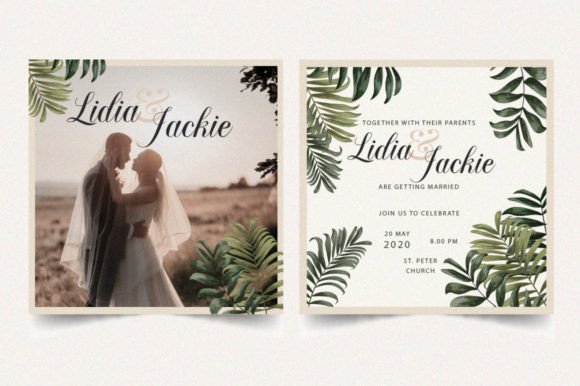
Hailand Font: Elevate Your Designs with Luxury and Sophistication
In the world of typography, fonts play a crucial role in conveying the tone and personality of a brand or design. For those seeking to add a touch of luxury and sophistication to their projects, Hailand Font is an exquisite script font that embodies refinement and class. In this article, we’ll explore the features and benefits of Hailand Font, and how it can elevate your designs to new heights.
What is Hailand Font?
Hailand Font is a deluxe and exquisite script font that boasts finely crafted and elegant letterforms with a flowing calligraphic touch. This font is designed to exude refinement and class, making it perfect for creating high-end branding, editorial designs, or any project that requires a touch of opulence and beauty.
Key Features of Hailand Font
- Elegant Letterforms: Hailand Font features beautifully crafted letterforms with a flowing calligraphic touch that adds a touch of sophistication to any design.
- PUA Encoded: This font is PUA (Private Use Area) encoded, which means you can access all glyphs and swashes effortlessly, giving you maximum creative control.
- Luxurious and Refined: Hailand Font is designed to convey luxury and refinement, making it perfect for high-end branding, editorial designs, and other projects that require a touch of elegance.
Uses of Hailand Font
Hailand Font is a versatile font that can be used in a variety of design projects, including:
- High-End Branding: Use Hailand Font to create luxurious and sophisticated brand identities that exude refinement and class.
- Editorial Designs: Add a touch of elegance to your editorial designs, such as magazines, newspapers, and books, with Hailand Font.
- Wedding and Event Designs: Make your wedding or event designs stand out with Hailand Font’s elegant and refined letterforms.
- Packaging and Advertising: Use Hailand Font to add a touch of luxury and sophistication to your packaging and advertising designs.
Benefits of Using Hailand Font
By using Hailand Font in your designs, you can enjoy a range of benefits, including:
- Unique and Distinctive: Hailand Font’s elegant and refined letterforms will set your designs apart from the rest, giving you a unique and distinctive look.
- High-Quality Typography: With its finely crafted letterforms and flowing calligraphic touch, Hailand Font provides high-quality typography that will elevate your designs.
- Easy to Use: As a PUA encoded font, Hailand Font is easy to use and allows you to access all glyphs and swashes effortlessly.
Tips for Using Hailand Font Effectively
To get the most out of Hailand Font, here are some tips for using it effectively:
- Pair with Neutral Colors: Pair Hailand Font with neutral colors, such as black, white, or gray, to let the font’s elegance shine.
- Experiment with Swashes: Take advantage of Hailand Font’s swashes to add a touch of creativity and flair to your designs.
- Use for Headings and Titles: Use Hailand Font for headings and titles to add a touch of luxury and sophistication to your designs.
In conclusion, Hailand Font is a luxurious and exquisite script font that embodies refinement and class. With its finely crafted letterforms, flowing calligraphic touch, and PUA encoding, this font is perfect for creating high-end branding, editorial designs, or any project that requires a touch of opulence and beauty. By using Hailand Font in your designs, you can elevate your typography and add a touch of sophistication that will set your designs apart from the rest.